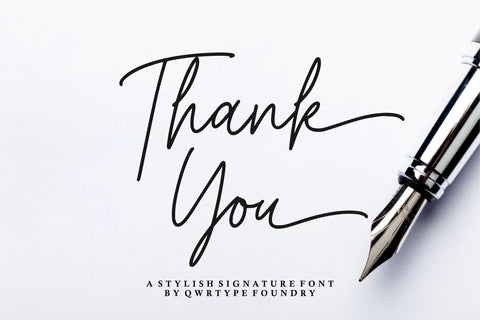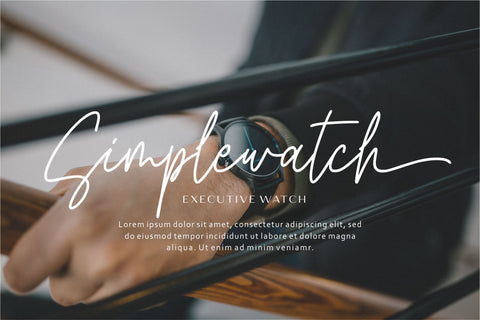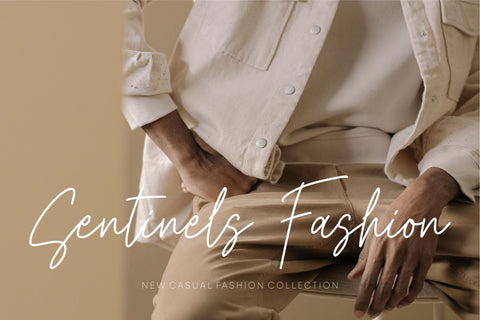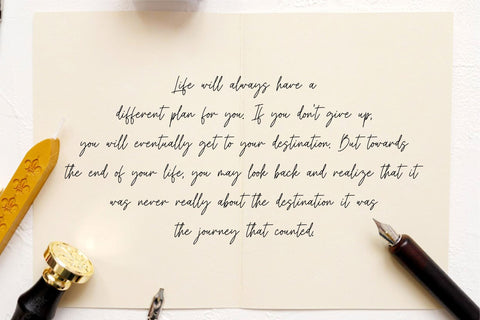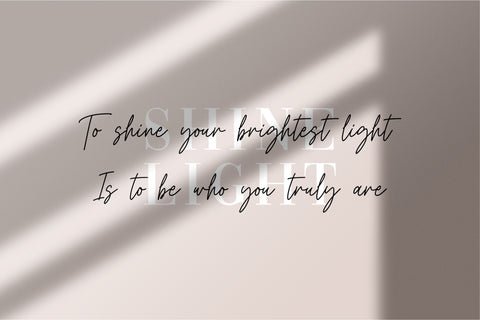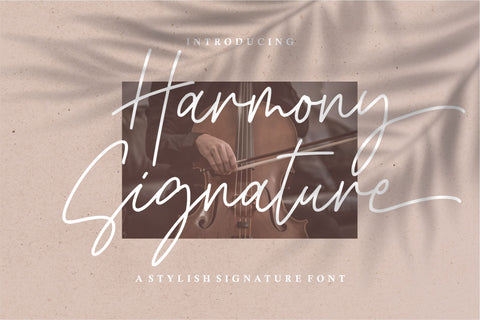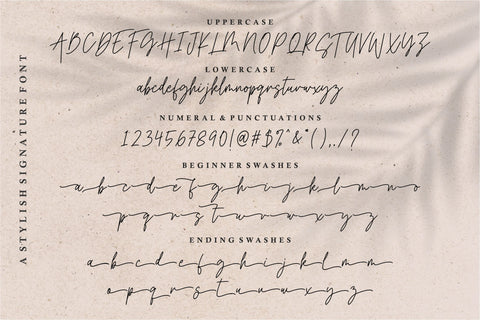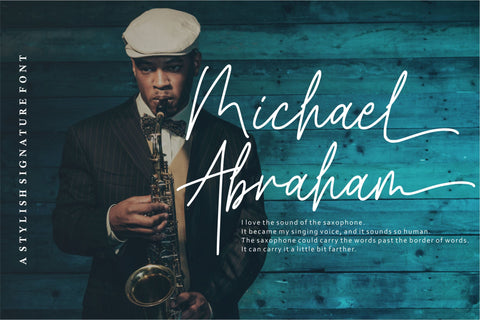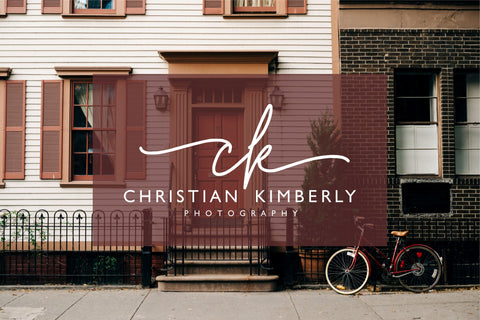
Harmony Signature
Introducing by Qwrtype
Proudly Present, Harmony Signature
Harmony Signature is a Stylish Signature Font
Harmony Signature is perfect for product packaging, branding project, megazine, social media, wedding, or just used to express words above the background.